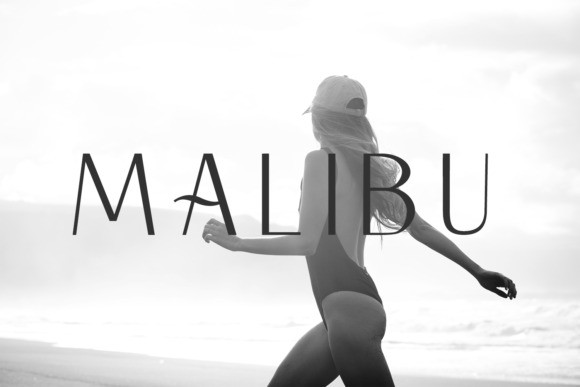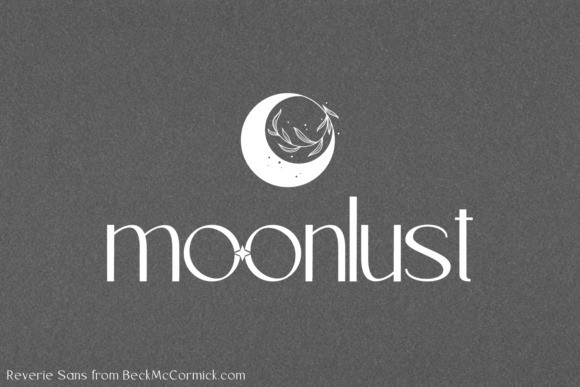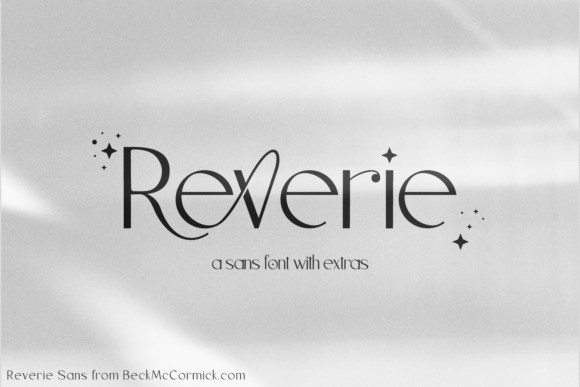
Reverie Font
Reverie is an elegant and stylish sans serif font. This font is PUA encoded which means you can access all of the glyphs and swashes with ease!